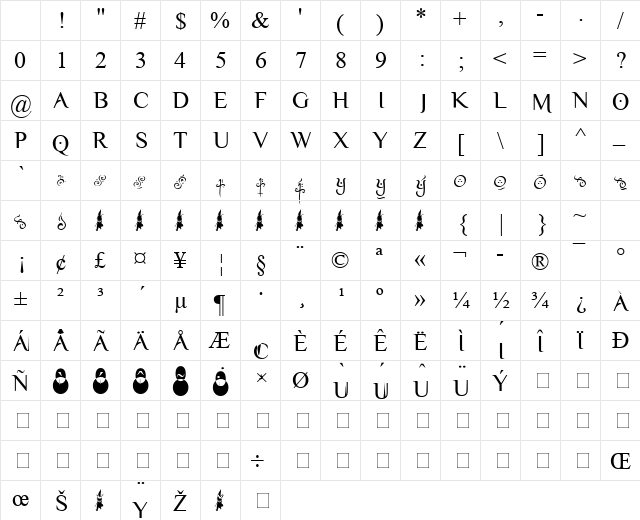
Complete Yellow Magician Regular glyph index. Displaying only characters natively supported by Yellow Magician Regular font.
Yellow Magician is a composed and adaptable typeface that performs quietly and consistently across a wide range of design contexts.